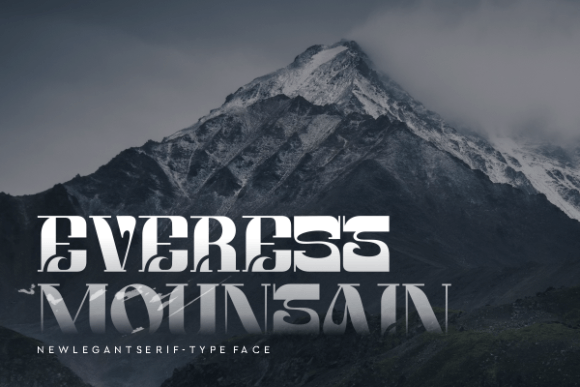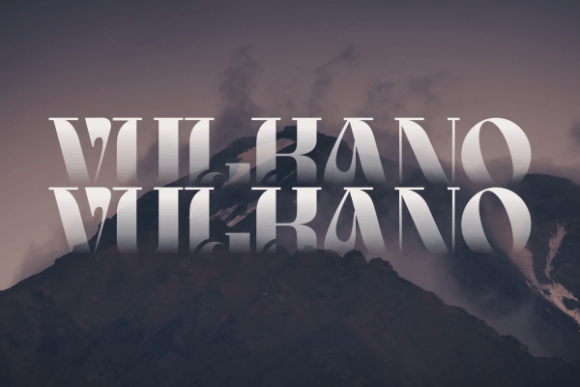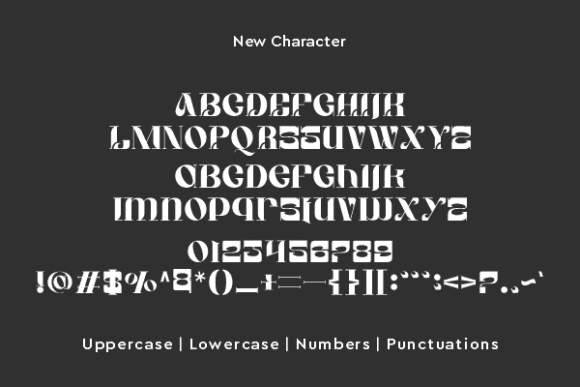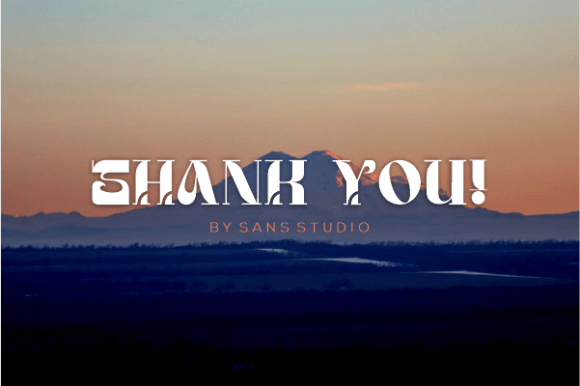
Arobian Font: Elevate Your Designs with Timeless Elegance
In the world of typography, fonts play a crucial role in conveying the tone and aesthetic of a design. For designers and crafters seeking a font that embodies both classic sophistication and modern flair, Arobian Font is an exceptional choice. This stylish serif font seamlessly merges traditional elegance with a contemporary twist, making it perfect for projects that demand a refined yet modern look.
The Essence of Arobian Font
AROBIAN is more than just a font; it’s a typographic experience. The carefully crafted letterforms exude sophistication, bringing a touch of refinement to your designs. Each character is meticulously designed to ensure that the font not only stands out but also complements the overall aesthetic of your project. Whether you’re working on a luxury brand identity, a high-end product packaging, or a sophisticated editorial layout, Arobian Font is designed to add a distinctive charm to your typographic expression.
Key Features of Arobian Font
- Serif Elegance: Arobian Font features classic serif elements that evoke a sense of tradition and reliability, making it ideal for projects where a timeless look is desired.
- Modern Twist: What sets Arobian apart is its modern twist, which gives it a fresh and contemporary feel. This blend of old and new ensures that your designs are both current and enduring.
- Sophisticated Letterforms: Each letterform in Arobian Font is crafted with precision and attention to detail, ensuring that every character contributes to a cohesive and sophisticated visual identity.
- Versatility: Arobian Font is incredibly versatile, suitable for a wide range of design applications, from print to digital media. Its legibility and aesthetic appeal make it perfect for use in magazines, books, branding, advertising, and more.
Why Choose Arobian Font?
Choosing Arobian Font for your design projects offers several advantages:
- Unique Aesthetic: Arobian Font provides a unique aesthetic that can help your designs stand out in a crowded marketplace. Its blend of classic and modern elements ensures that your work looks distinguished and professional.
- Enhanced Readability: Despite its elegant and sophisticated design, Arobian Font maintains excellent readability, making it suitable for both body text and headlines.
- Time-Saving: With Arobian Font, you can achieve a high-end look without spending hours on custom typography. This efficiency can significantly streamline your design process.
- Cross-Platform Compatibility: Arobian Font is designed to perform well across various platforms and devices, ensuring that your typography looks great everywhere.
Using Arobian Font in Your Designs
Incorporating Arobian Font into your projects is straightforward. Here are some tips to get you started:
- Pairing: Arobian Font pairs well with a variety of other typefaces. For a classic look, try pairing it with a sans-serif font for contrast.
- Color Schemes: This font works beautifully with a monochromatic color scheme or rich, bold colors that enhance its sophisticated feel.
- Hierarchy: Use different weights of Arobian Font to create a visual hierarchy in your designs, ensuring that your message is conveyed clearly and effectively.
Arobian Font is a versatile and stylish serif font that brings a perfect blend of classic elegance and modern sophistication to your designs. Its carefully crafted letterforms, combined with its readability and versatility, make it an excellent choice for designers and crafters looking to elevate their typographic expression. Whether you’re aiming for a timeless aesthetic or a contemporary look, Arobian Font is sure to enhance your designs with its distinctive charm.
In the realm of typography, Arobian Font stands out as a beacon of elegance and modernity. It’s not just a font; it’s a design statement that speaks of sophistication, refinement, and a keen eye for detail. By incorporating Arobian Font into your projects, you’re not just choosing a typeface; you’re embracing a design philosophy that values beauty, legibility, and impact. So, if you’re looking to add a touch of class and contemporary flair to your designs, Arobian Font is undoubtedly worth exploring.